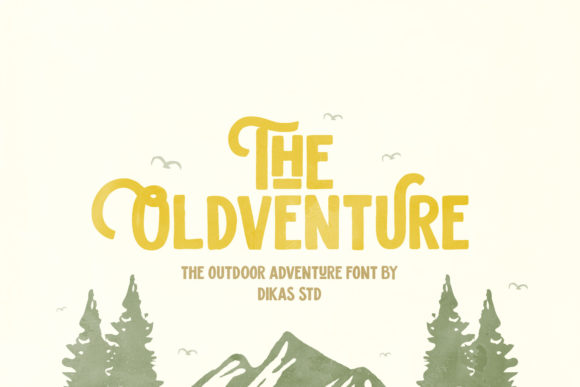
Journey through time with The Oldventure Font, a captivating display font that exudes the charm and elegance of vintage designs. This meticulously crafted font, brought to life by the talented Dikas Studio, elevates your creations with its clean lines and alluring aesthetics. Unleash your creativity and transform your projects into timeless masterpieces with The Oldventure Font.
Step into a world of nostalgia and authenticity with The Oldventure Font. Relive the beauty of bygone eras as you incorporate this font into your designs. Its vintage-inspired characters add a touch of warmth and sophistication to any project, whether it's a heartfelt card, a distinctive logo, a captivating poster, or an eye-catching label.
The Oldventure Font's versatility goes beyond its vintage charm. Its clean and legible letterforms ensure effortless readability, making it perfect for a wide spectrum of applications. From stunning headings to captivating body text, The Oldventure Font seamlessly adapts to your creative vision.
Elevate your crafting ideas to new heights with The Oldventure Font. Its timeless appeal and versatility make it an indispensable tool for designers, crafters, and creative professionals seeking a font that speaks to the heart and soul. Embrace the allure of vintage aesthetics and embark on a creative journey like no other.